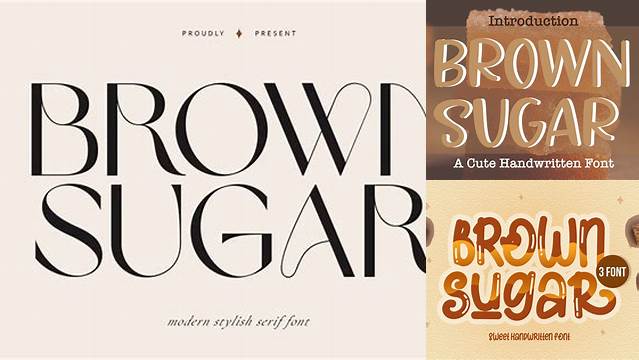
Hey guys! Ever wanted to add that sweet, cozy vibe to your designs? Well, look no further! We're diving deep into the world of the brown sugar font and how you can snag it for free on Canva. This article is your ultimate guide, packed with tips, tricks, and all the info you need to get your hands on this beautiful font. Whether you're a seasoned designer or just starting out, I've got you covered. So, let's get started and sprinkle some brown sugar magic on your next project!
H2: What is the Brown Sugar Font and Why You'll Love It
Alright, first things first: what exactly is the brown sugar font? Think of it as the visual equivalent of a warm hug. This font typically embodies a handwritten style with a touch of casual elegance. It’s known for its slightly rounded edges and flowing strokes, making it perfect for projects that need a friendly, inviting feel. Imagine using it for invitations, social media graphics, branding materials, or even website headers. The possibilities are endless, really. The font's appeal comes from its ability to evoke feelings of warmth, nostalgia, and authenticity. That's why so many people are drawn to it. It’s like a secret weapon for designers who want to create a connection with their audience. I mean, who doesn't love a font that feels both stylish and approachable?
Now, why will you love the brown sugar font? Because it’s versatile, man! It adapts to various design needs. Whether you're crafting a rustic-themed wedding invitation or a modern blog post, this font adds that special something. Plus, it's super readable, even at smaller sizes, which is a huge win for any design. It’s also the kind of font that makes your designs stand out. In a world of generic fonts, the brown sugar font offers a unique personality that can make your brand unforgettable. Think about the impact you can make with a beautifully designed logo or a captivating social media post using this font. You're essentially communicating your brand's values and personality with every letter. And the best part? It's all about creating a positive and memorable experience for your audience. This font gives your designs a handcrafted feel, as if each letter was carefully penned by hand. This personal touch instantly adds a sense of care and attention, which is something people really appreciate. So yeah, if you're looking for a font that’s charming, easy to read, and capable of enhancing your overall design aesthetic, the brown sugar font is definitely worth considering.
Furthermore, the brown sugar font can be a great asset when aiming for a specific target audience. Its friendly and inviting nature is particularly effective in reaching demographics that appreciate authenticity and warmth. For instance, if you are working on a design for a lifestyle brand or a food blog, this font will be perfect. The soft, rounded shapes and slightly imperfect lines of the font give off an impression of friendliness and accessibility, making your content more relatable. Remember, design is not just about aesthetics; it’s also about effectively communicating your message and establishing a connection with your audience. By choosing the right font, you can significantly enhance the impact of your designs. You will not only grab the attention of your audience, but also evoke positive emotions that make them more likely to engage with your brand. The perfect brown sugar font makes a statement, setting your designs apart and making your message memorable.
H2: Best Practices for Using the Brown Sugar Font in Your Designs
Alright, you've got your brown sugar font, now how do you use it like a pro? First off, let's talk about balance. The brown sugar font, with its casual and handmade style, is perfect for headings, titles, and short snippets of text. It’s not usually the best choice for long paragraphs of body text, which can be harder to read. If you want to use the brown sugar font for a longer text, you can consider mixing it with a clean, easy-to-read font. This combination adds visual interest without sacrificing readability. Think about how the font complements your overall design. The brown sugar font works well with designs that have a warm and inviting feel. Consider backgrounds, colors, and images that enhance this effect. Use complementary colors, such as soft pastels, warm earth tones, or neutral shades. Consider how the font interacts with other design elements, like images and illustrations, to bring it all together. Another tip is to think about size and spacing. You'll want to adjust the font size for clarity. This will ensure that your text is legible. You can also adjust the spacing between letters (kerning) and lines (leading) to improve readability. When you set the size of your font, you should take into account the overall design and consider the size of your screen. If the font is small on mobile devices, people might not see it. Therefore, it should be readable on all devices. Also, avoid overuse. The brown sugar font is best used strategically. Overusing it can make your design feel cluttered or unprofessional. Stick to using it for key elements, such as titles, headings, and calls to action. This way, your font becomes a special design element rather than an overwhelming distraction. Make your text stand out by using it in key areas that your audience sees first. By incorporating these best practices, you can guarantee that your designs will be both beautiful and highly effective.
H2: Font Combinations That Go Well with the Brown Sugar Font
What fonts pair best with the brown sugar font? Great question! The key is to find fonts that complement it without clashing. A good starting point is a clean, easy-to-read font for body text. Think of fonts like Open Sans, Lato, Montserrat, or Helvetica. These fonts are professional and simple, which creates a perfect contrast with the more decorative brown sugar font. Then there's a little contrast. You can also use the brown sugar font with a sans-serif font. You want to choose fonts with similar weights and spacing. The key is to find fonts that have a similar overall style and visual weight, to keep the design feeling cohesive. For headings, consider a more structured sans-serif font. This balance makes sure your design is readable and visually appealing. This contrast makes sure that the design is easy to read. If you want to add a little bit of personality to your design, try using a serif font for the body text. This combination can add a touch of elegance and formality to your designs. You can even experiment with font pairing tools. There are tons of resources available online, like Canva’s own font pairing tool, that can suggest combinations. These tools can provide you with inspiration and ideas for creating visually pleasing designs. You can also check out different font combinations. Research the fonts to see if they are easy to read. Pay attention to how the fonts look on different backgrounds. This will make sure that your design is visible. Experimenting and practicing are critical to master the art of font pairing. Try different combinations to get a feel for what works best for you. Consider your target audience, the message you are trying to convey, and the overall style of your design. Choosing the right font combinations can significantly improve the overall aesthetic of your designs and make them more memorable.
H2: The Brown Sugar Font and Branding: Making a Statement
H2: The Brown Sugar Font and the Design Community: Sharing and Learning
How can you get involved with the design community while using the brown sugar font? You should start by joining online forums. These online communities are great places to connect. There you can share your work. You can also ask for feedback. You can also learn from other designers. Participate in design challenges. You can use the brown sugar font in design challenges. Design challenges can help you improve your skills. You can also follow other designers. You can learn from other designers' work. You can connect with other designers by following them. You can also seek feedback. Seeking feedback is critical for improving. Use social media platforms. You can share your designs. It will give you a lot of exposure. By being involved with the design community, you can improve. By participating, you'll gain feedback, learn from others, and improve your skills.